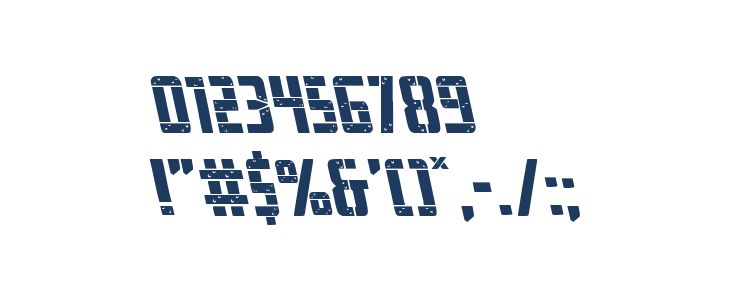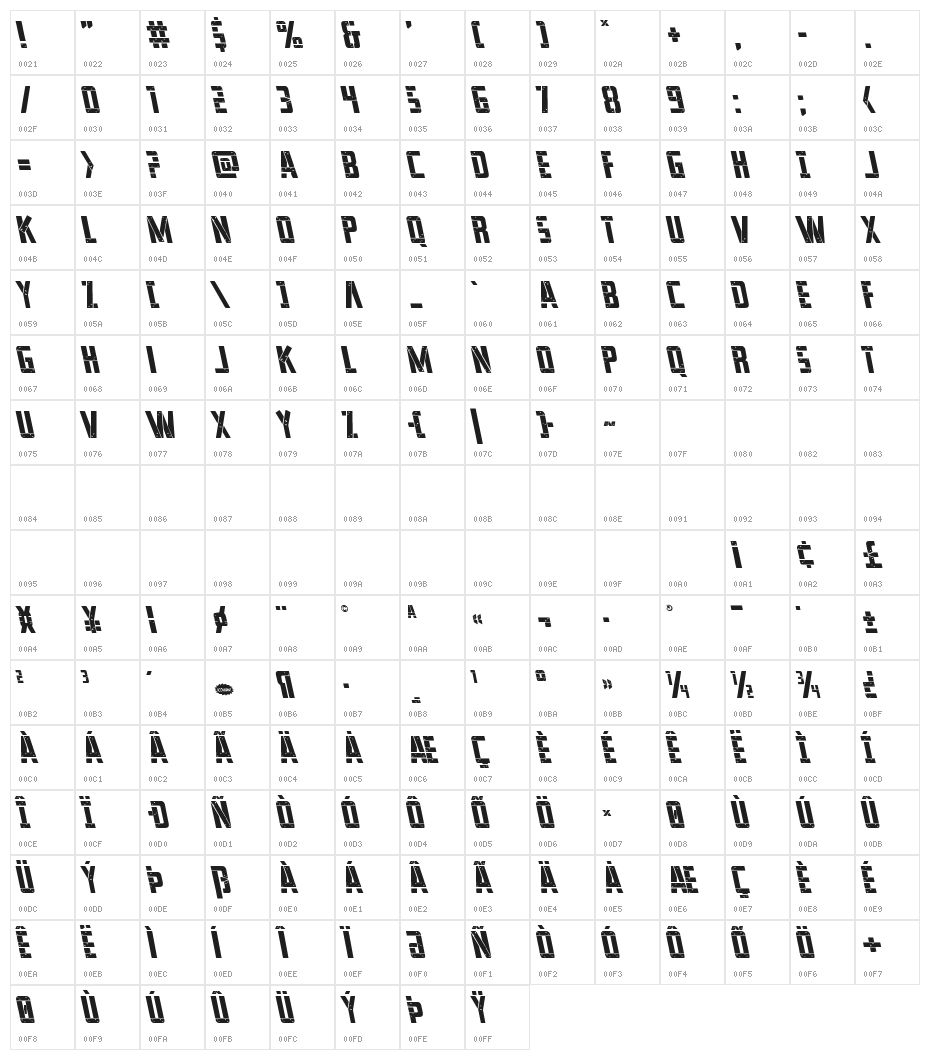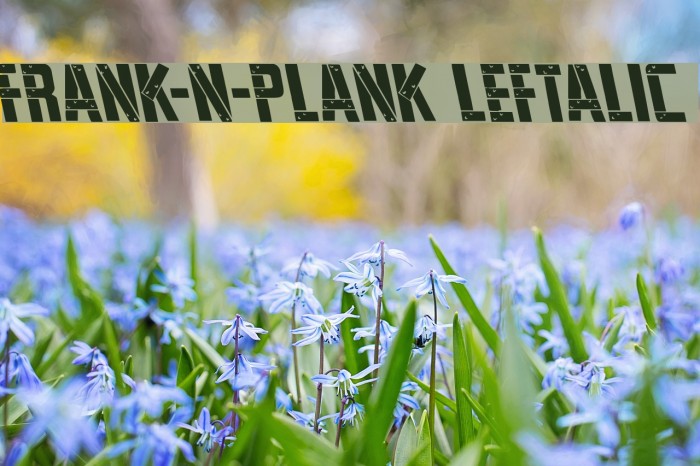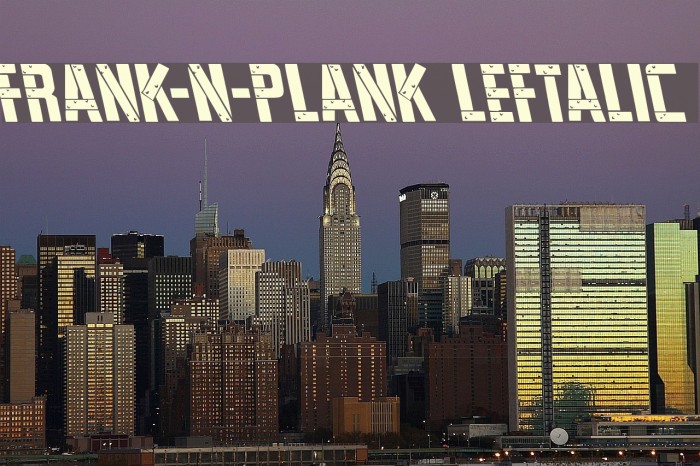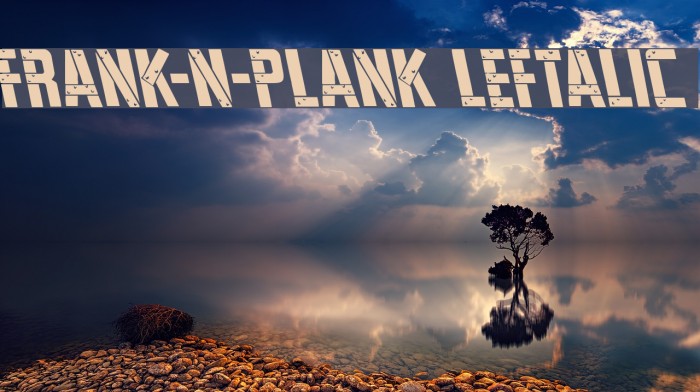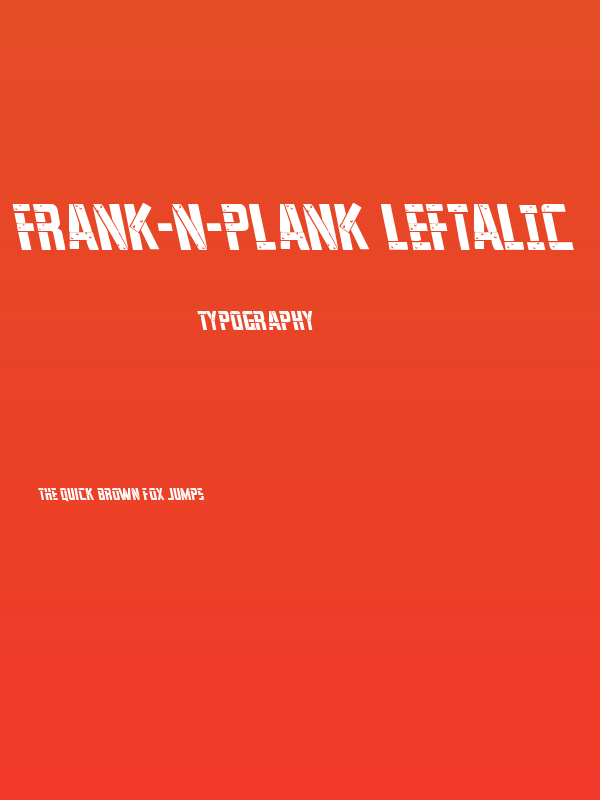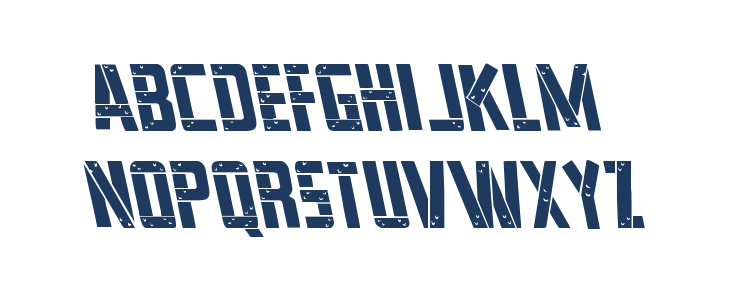
Frank-n-Plank Leftalic Font
Frank-n-Plank Leftalic Description
This font features a bold, industrial design with a distinct mechanical aesthetic. Each character is constructed with a combination of solid blocks and rivet-like details, giving it a rugged, metallic appearance. The letters are slightly slanted, adding a dynamic and forward-moving feel. The uppercase and lowercase letters maintain a consistent style, with sharp angles and straight lines. Numbers and special characters follow the same design principles, ensuring uniformity across all elements. The font's unique style makes it stand out, ideal for projects that require a strong, impactful visual statement.
| Overall Style | Industrial, Modern |
| Proposed Projects | Ideal for branding, posters, video game graphics, and industrial-themed designs. |